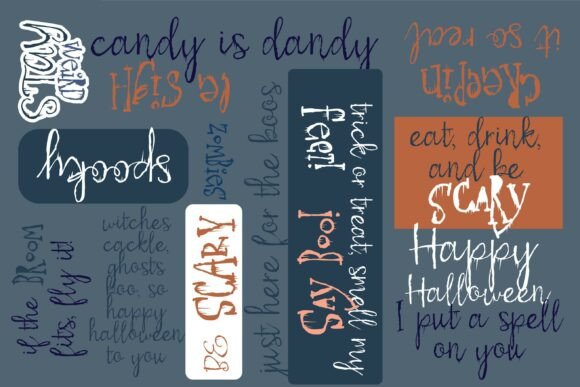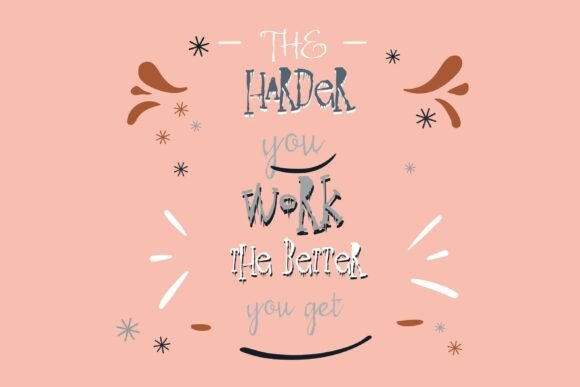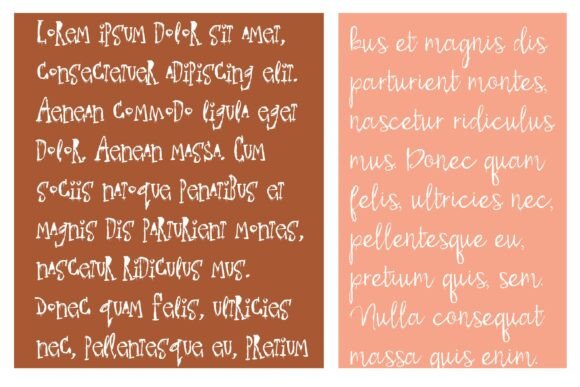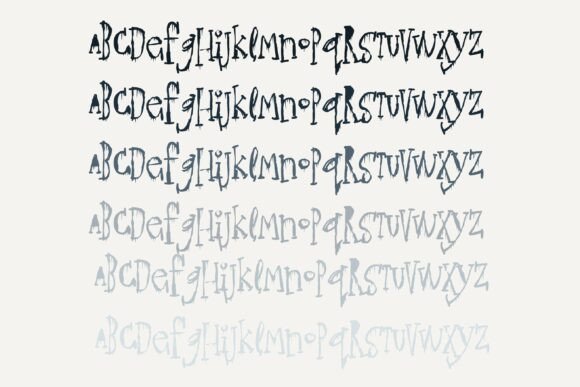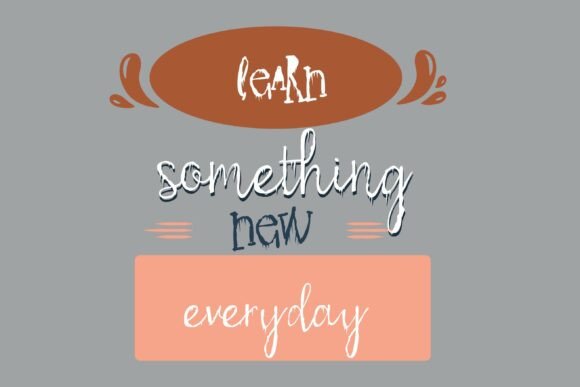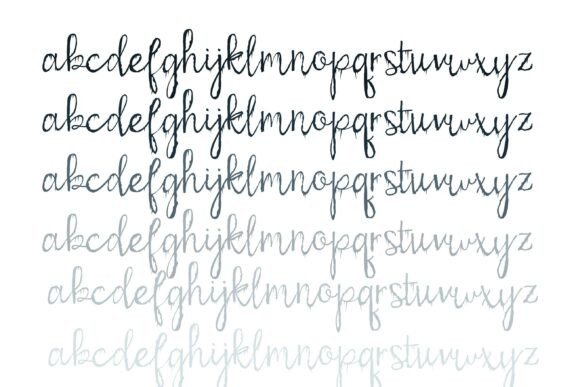
Gossip Gruesome Duo Font: A Hand-Crafted Masterpiece for Designers and Crafters
Are you tired of using the same old fonts in your designs? Look no further than the Gossip Gruesome Duo Font, a hand-crafted font duo that combines a drippy, oozy font with a perfectly coordinated script. This unique font duo is perfect for designers and crafters who want to add a touch of personality to their work.
A hand-crafted font is a typeface that is created by hand, rather than using computer algorithms. This means that each letter and symbol is carefully crafted to create a unique and distinctive look. Hand-crafted fonts can be either formal or informal, and they can be used for a variety of purposes.
Characteristics of Handwritten Fonts
Handwritten fonts, like the Gossip Gruesome Duo Font, have several characteristics that set them apart from other types of fonts. Some of these characteristics include:
• The letters are not perfectly uniform in size or shape.
• There may be slight variations in the spacing between letters and words.
• The font may have a “wiggly” or “squiggly” appearance.
• The font may be difficult to read at small sizes.
Benefits of Using Handwritten Fonts
Handwritten fonts can be a great way to add a casual touch to your designs. They can also be used to create a sense of nostalgia or whimsy. Handwritten fonts are perfect for:
• Crafting and DIY projects
• Invitations and party decorations
• Branding and packaging design
The Gossip Gruesome Duo Font: A Closer Look
The Gossip Gruesome Duo Font is a unique and versatile font duo that includes six fonts in total. The font duo combines a drippy, oozy font with a perfectly coordinated script. This font duo is perfect for designers and crafters who want to add a touch of personality to their work.
Using the Gossip Gruesome Duo Font in Your Designs
When using the Gossip Gruesome Duo Font in your designs, there are a few things to keep in mind:
• Use it for display text: The Gossip Gruesome Duo Font is perfect for display text, such as headings and titles.
• Pair it with a simple font: To create visual interest, pair the Gossip Gruesome Duo Font with a simple font for body text.
• Experiment with colors: The Gossip Gruesome Duo Font looks great in a variety of colors, so don’t be afraid to experiment.
Tips for Choosing the Right Handwritten Font
When choosing a handwritten font for your project, there are a few things to keep in mind:
• Consider the tone: Think about the tone you want to convey with your font. Do you want it to be formal or informal?
• Think about readability: Make sure the font is easy to read, especially at small sizes.
• Look at the details: Pay attention to the details of the font, such as the spacing and letterforms.
The Gossip Gruesome Duo Font is a unique and versatile font duo that is perfect for designers and crafters who want to add a touch of personality to their work. With its drippy, oozy font and perfectly coordinated script, this font duo is sure to make your designs stand out. Whether you’re working on a crafting project or a branding design, the Gossip Gruesome Duo Font is a great choice.